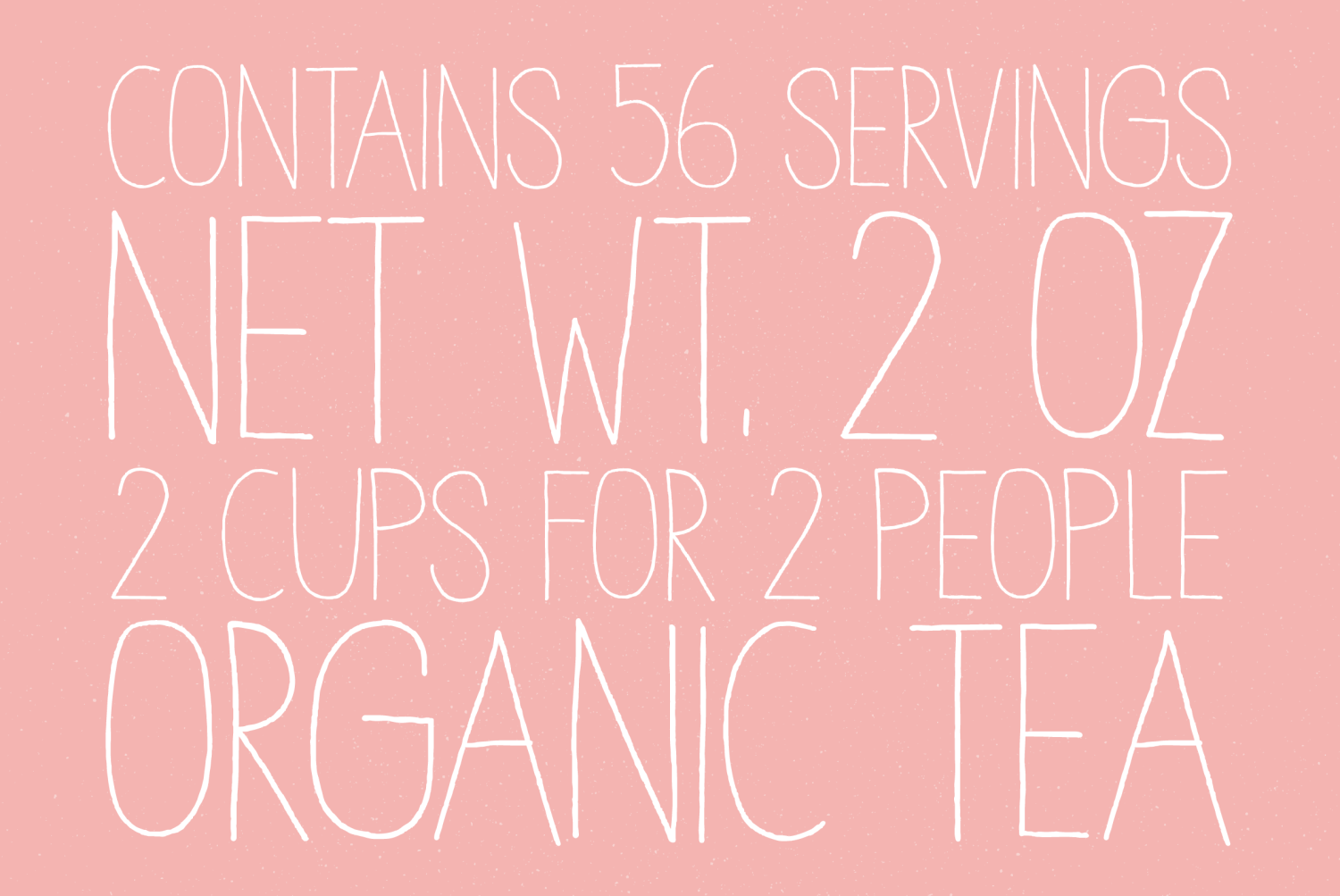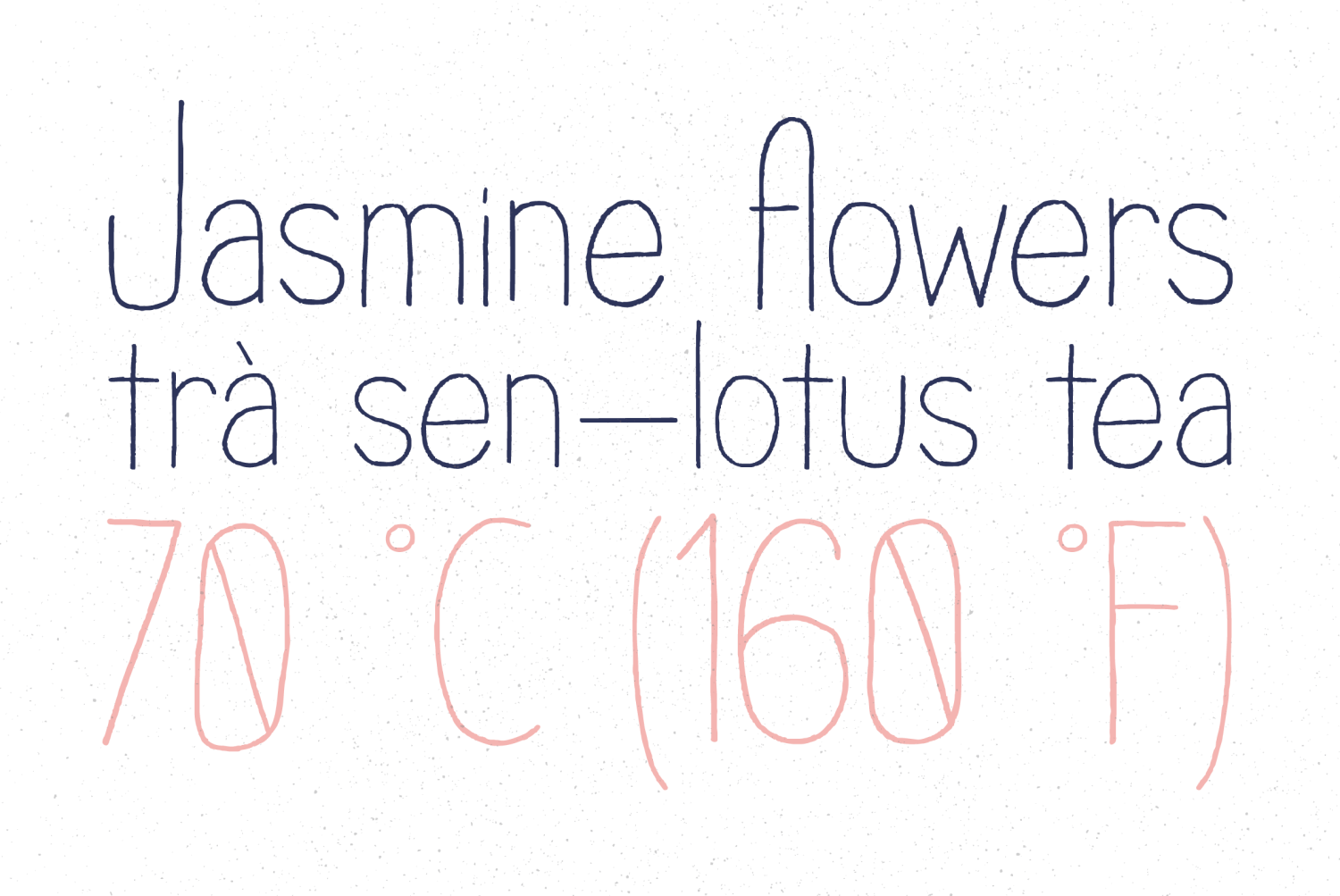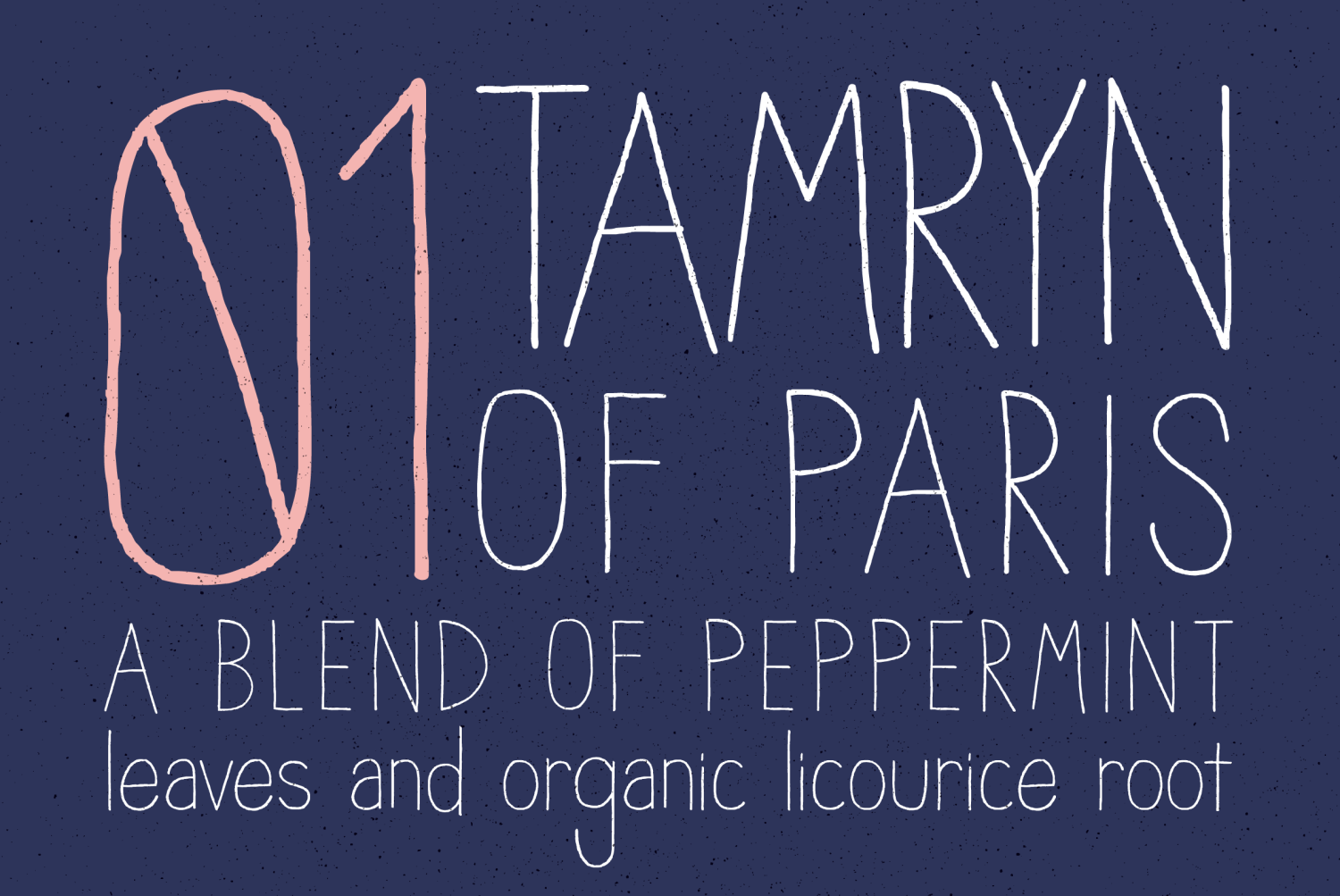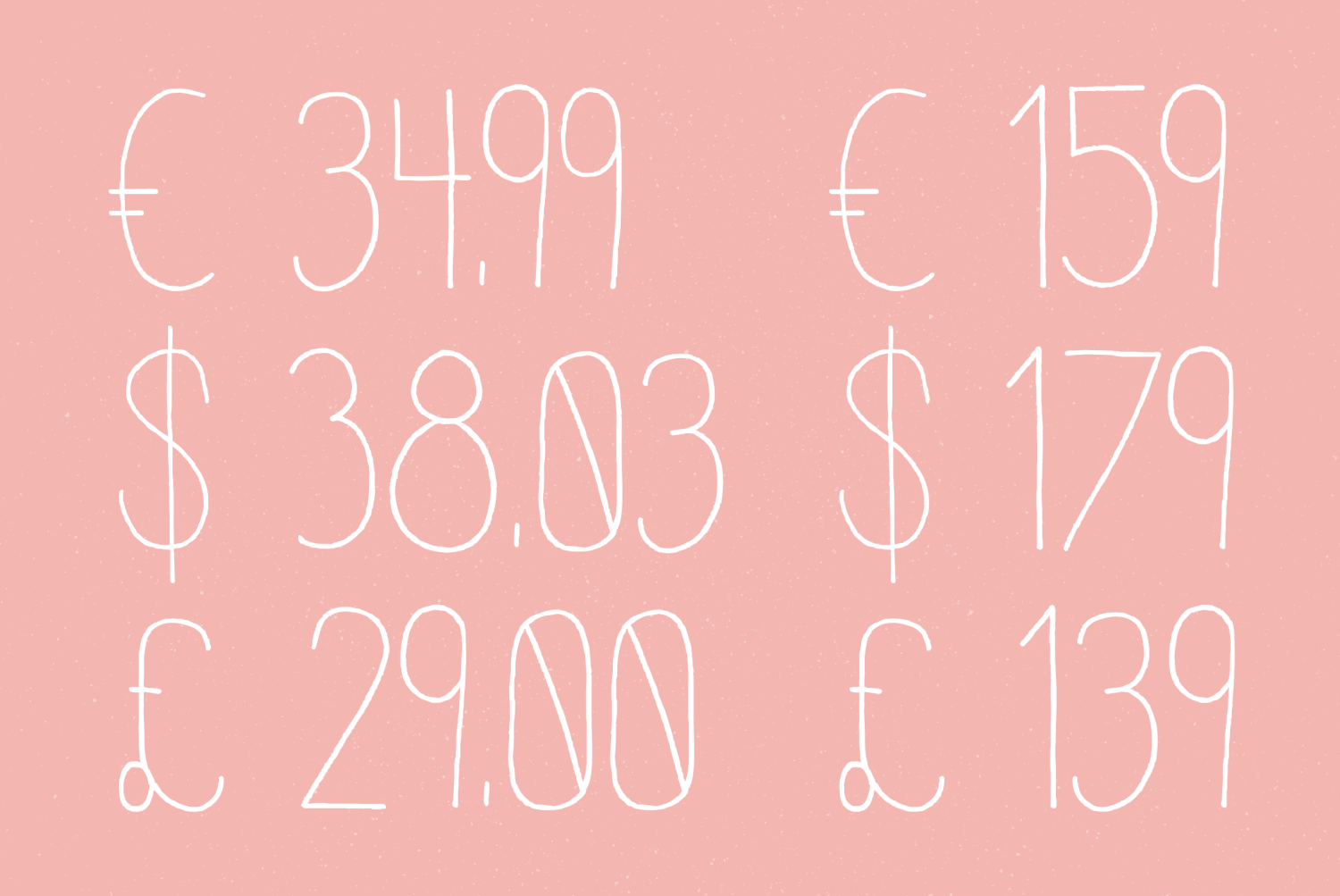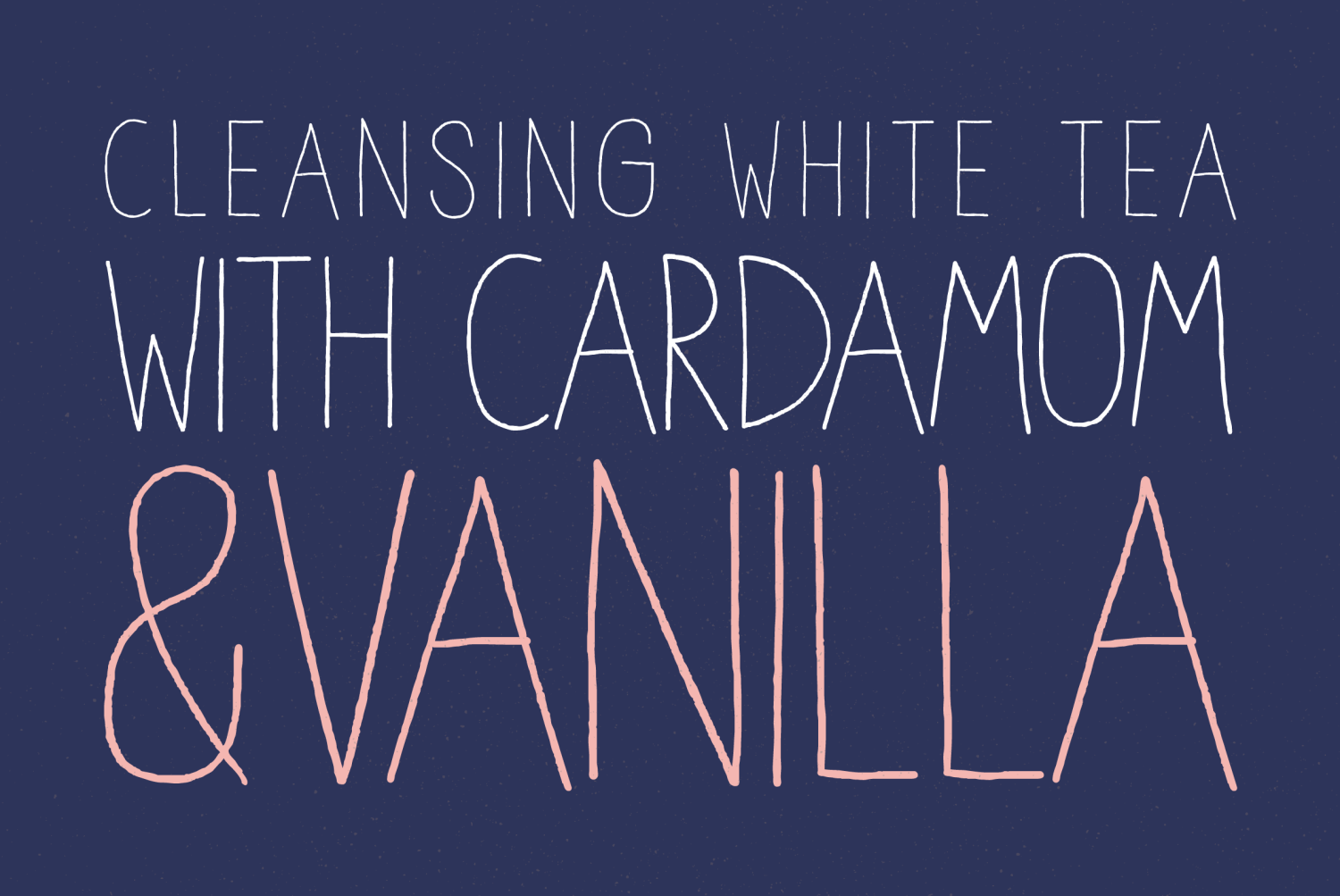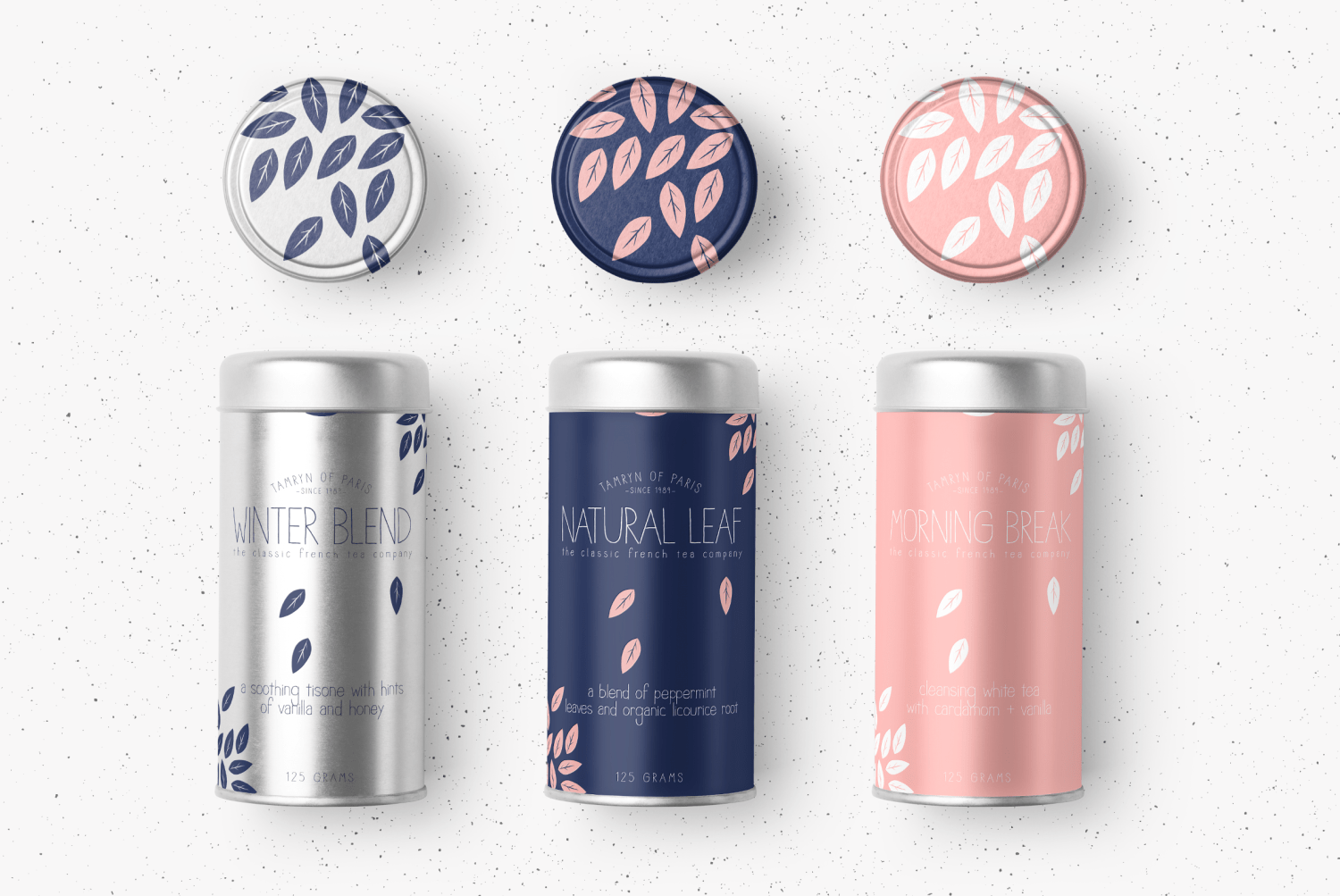
YWFT Thinaire
Tape hiss nearly obscures the tender chords and barely-whispered voice, singing a shy song that has the coffee house in tears. Yes, indeed, it's YWFT Thinaire, the dreamy nerd that has all the librarians fluttering at the reference desk. Now they're leaping to their feet in applause for its triumphant and sturdy nature--who's shushing now? Yet another masterful handset-to-OpenType conversion by the artful type dodgers at PintassilgoPrints, YWFT Thinaire is so packed with magical Contextual Alternates, you could hire it as a copywriter. We're talking 335 Glyphs of indie-squiggle heroism, with about 90 OpenType extras. Playful, yet poignant; folk with a little tronic, tender with a smidge of skatepunk, YWFT Thinaire is the movie star who still lives at home, and the rock star who still has his paper route. Oh, he's such a nice young man.